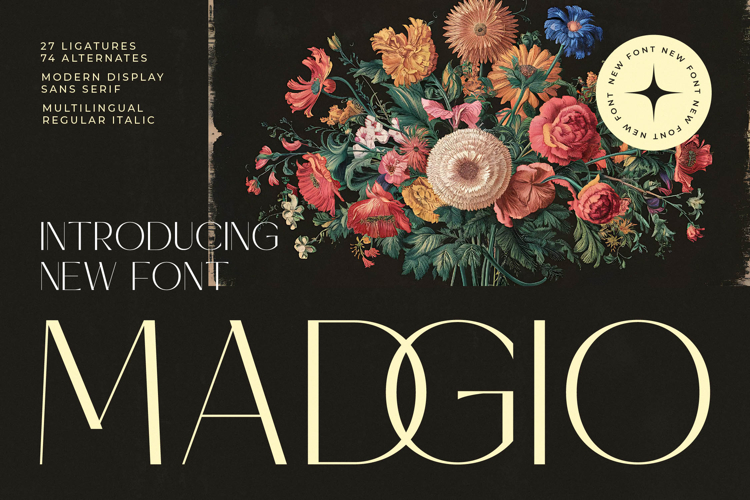
Madgio - Modern Display Sans Serif
The Madgio Typeface is a modern display sans serif font that blends minimalistic elegance with refined artistic detail. Featuring 27 ligatures and 74 alternates, this font gives designers the creative freedom to craft distinctive, bold, and visually striking typography. Its tall letterforms and clean geometric shapes are enhanced with subtle decorative touches, creating a balance between modern simplicity and luxurious sophistication. The sleek design makes it stand out in any context where typography must be more than functional—it must be an aesthetic statement.
This font is highly effective for branding and identity design, where it can transform logos, wordmarks, and monograms into powerful and memorable icons. It is perfectly suited for luxury fashion labels, fine jewelry brands, premium cosmetics, and boutique businesses that want to convey exclusivity and modern refinement. The combination of ligatures and alternates allows brands to customize their typography, ensuring a unique and timeless identity across print and digital platforms.